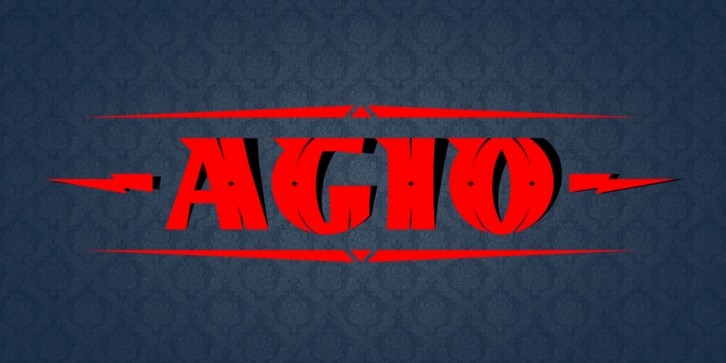
Designed by Valery Zaveryaev, Agio is a display sans font family. This typeface has two styles and was published by Gaslight.
Agio is a heavy contrast style font. It has cuts on the top of the some glyphs and spurs on top left corner every glyph. Ago also has some decorative styles for glyphs and decorative elements.